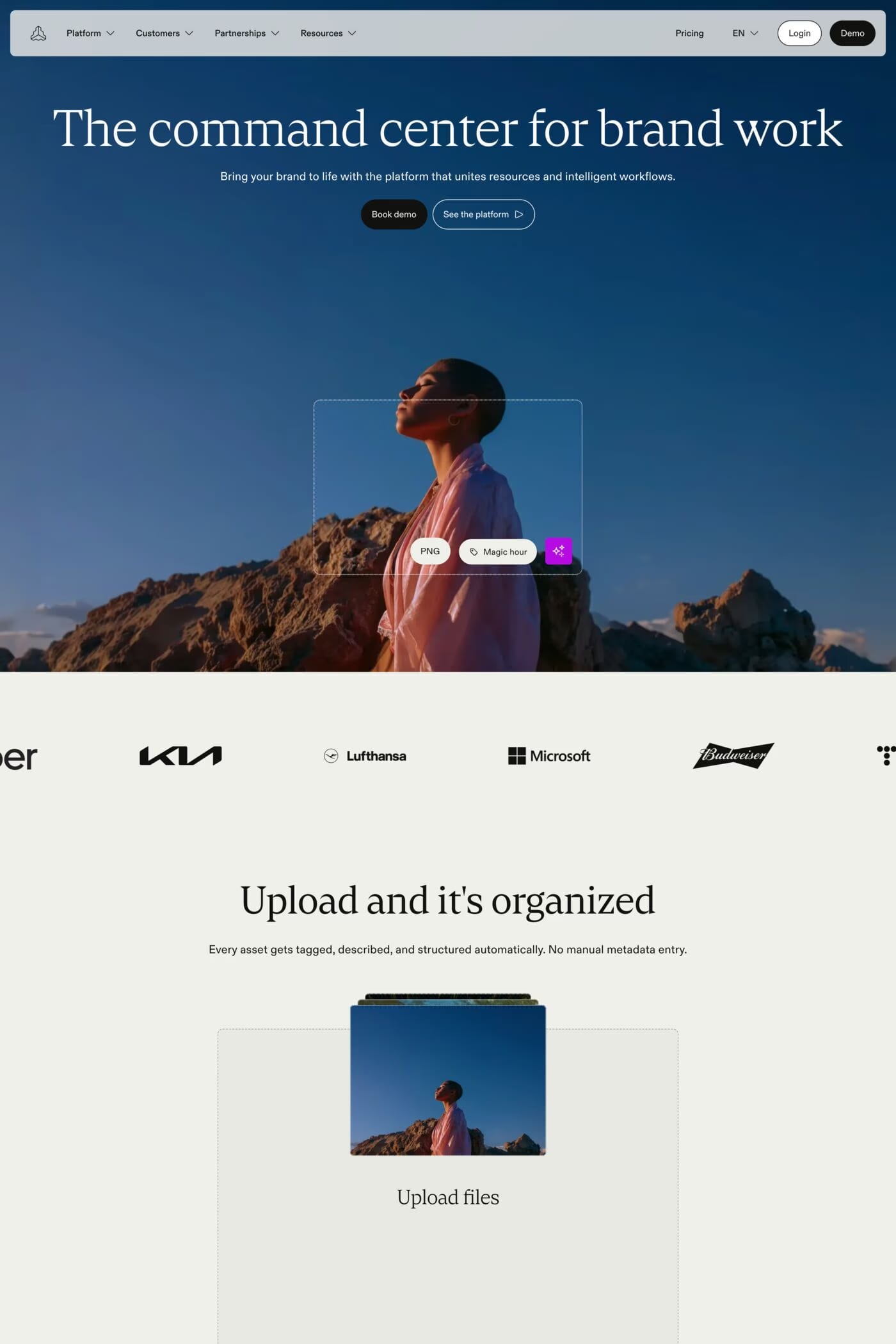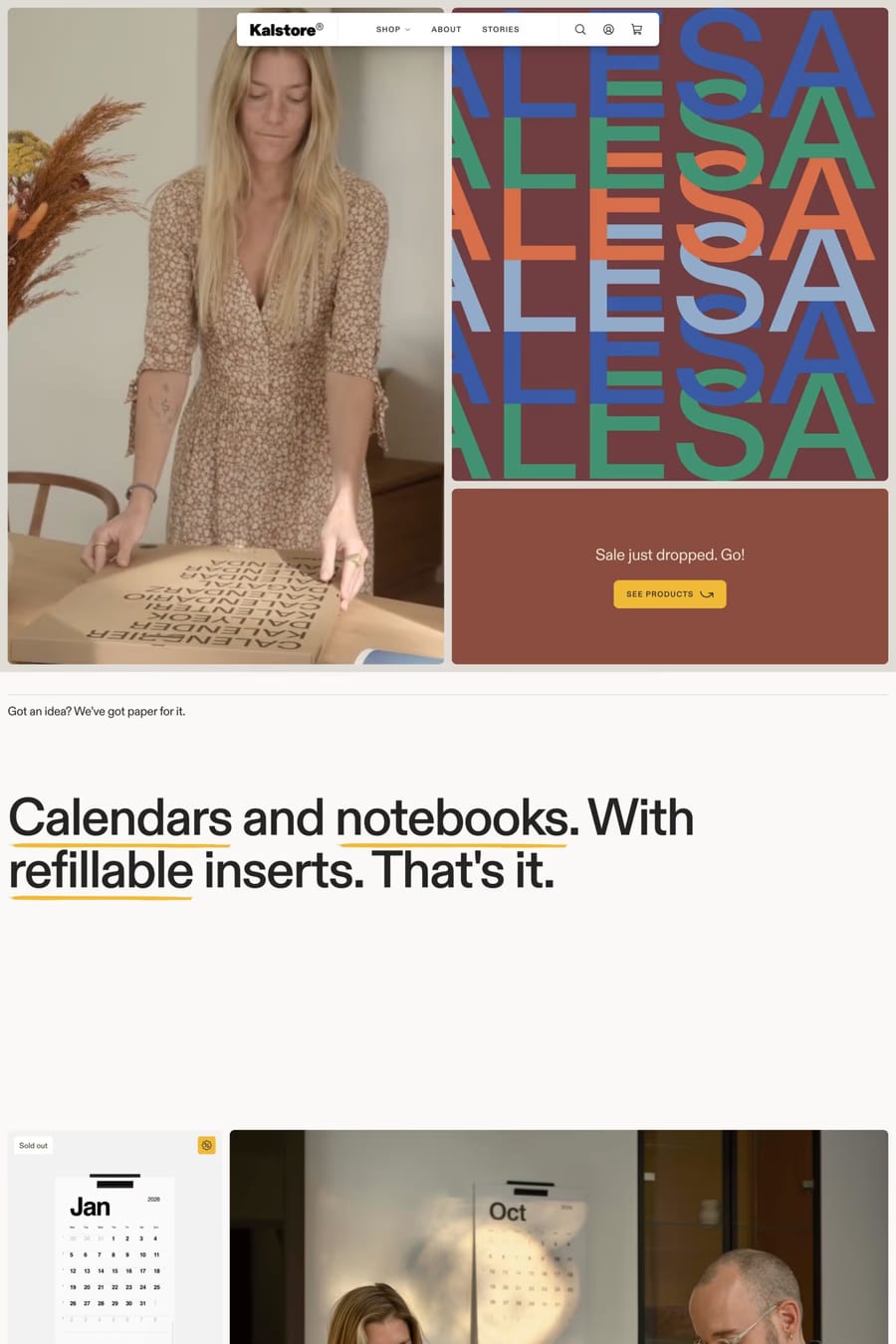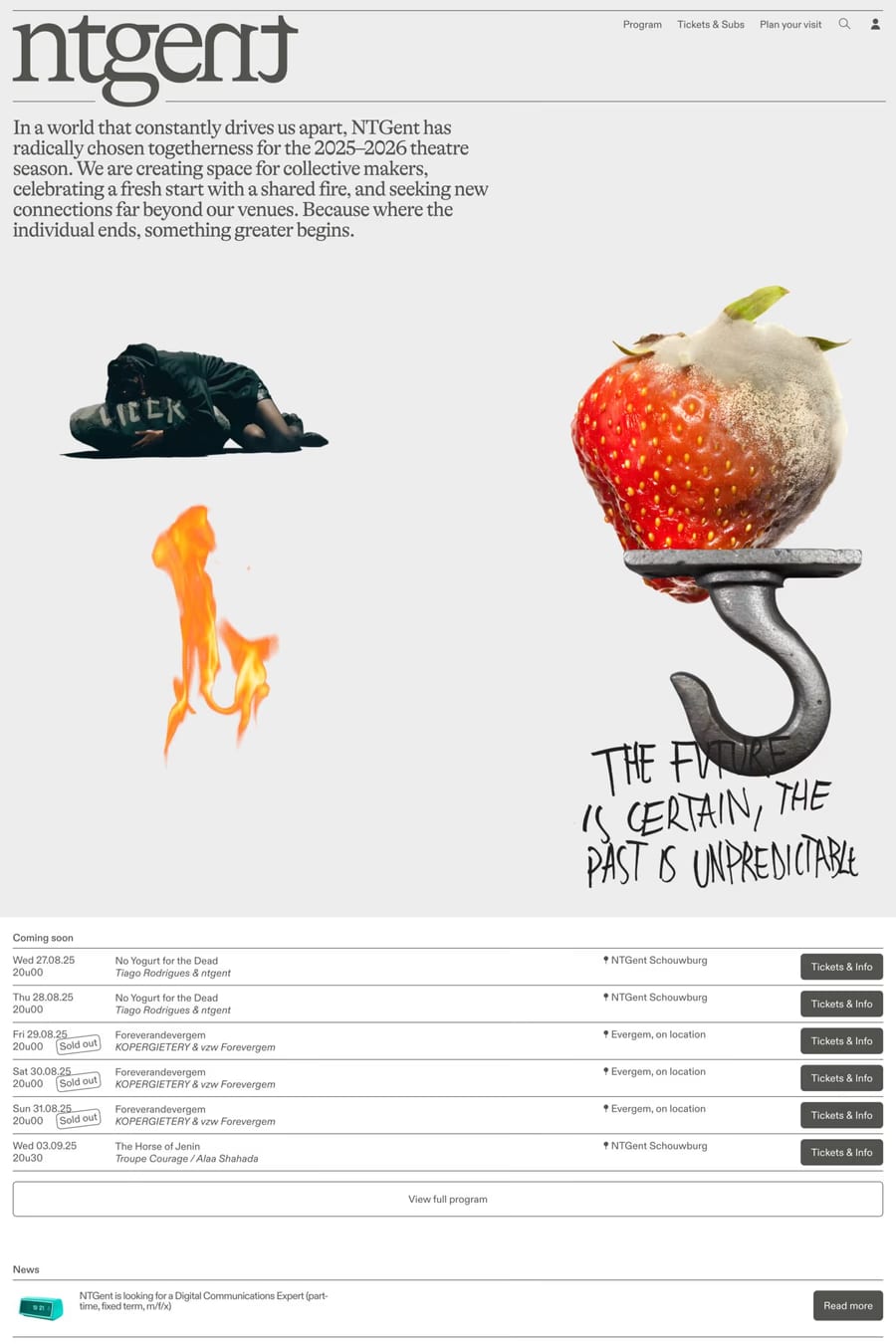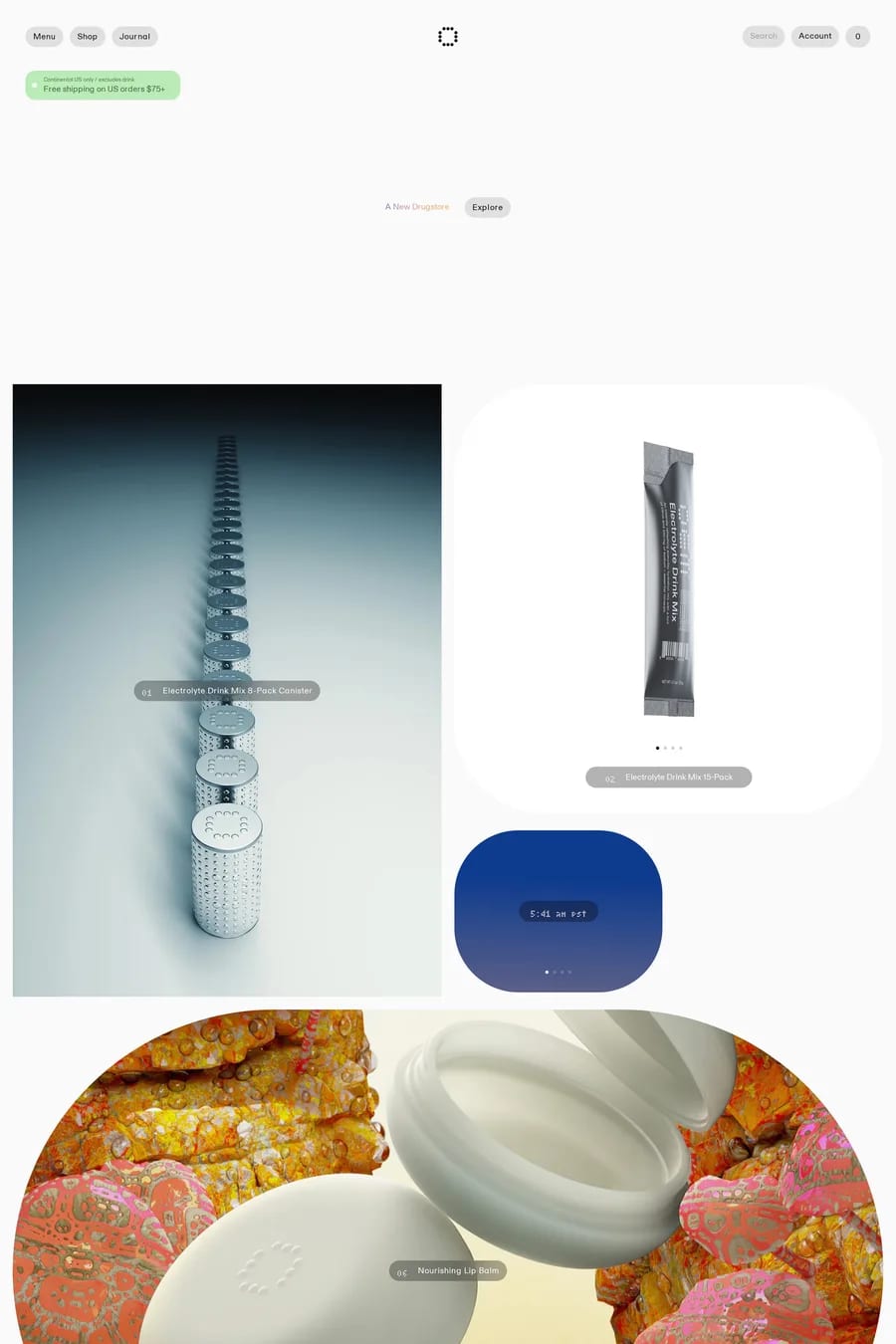
Diatype is a sans-serif typeface from Dinamo.
Diatype is a warm yet sharp grotesque with reader friendly shapes that harken back to the typesetting era. It’s available in five weights and italics, and also in monospaced and semi-monospaced styles.